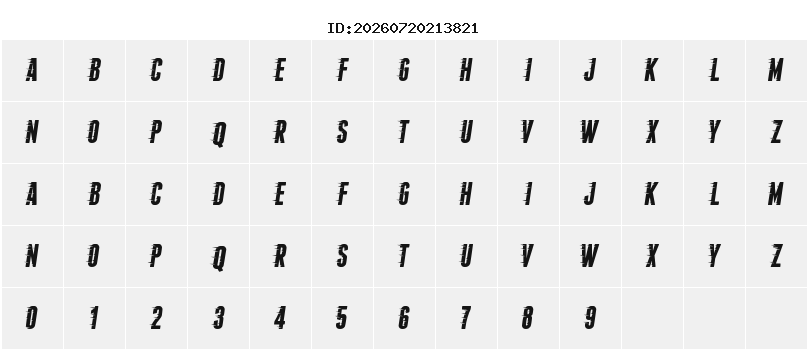
Fopi Rush.ttf is a modern, elegant sans-serif font designed for ultimate readability and visual harmony. Perfect for branding, headlines, web design, and print materials.